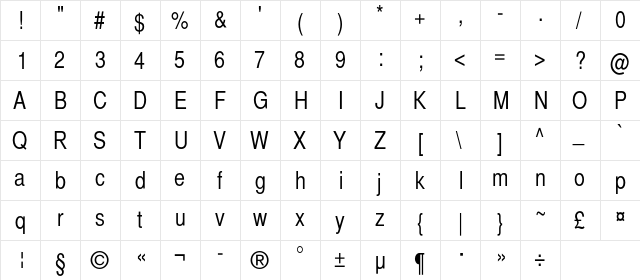
BastionC Regular
Design Context for BastionC Typeface
BastionC takes a measured approach to typography — its balanced proportions and neutral character make it a reliable workhorse for both digital and print work.